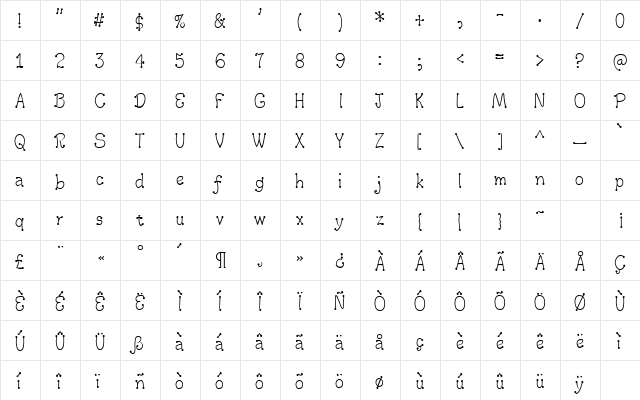
ArgentabObbed Regular
Design Context for ArgentabObbed Typeface
ArgentabObbed offers clean, dependable letterforms without strong stylistic allegiance, making it a practical choice for designers who need flexibility.